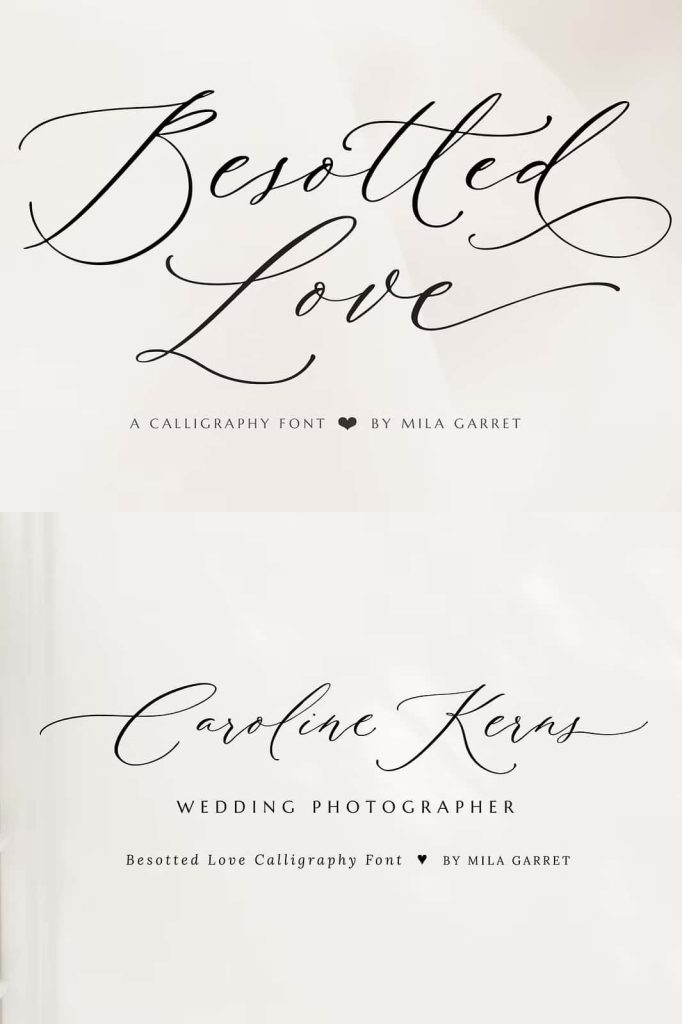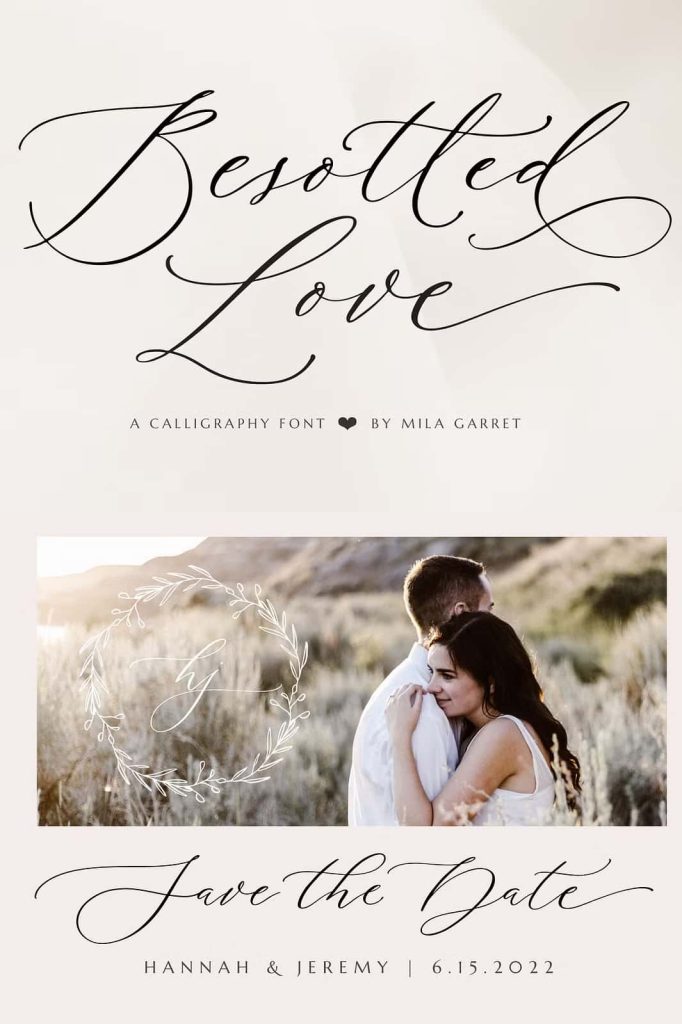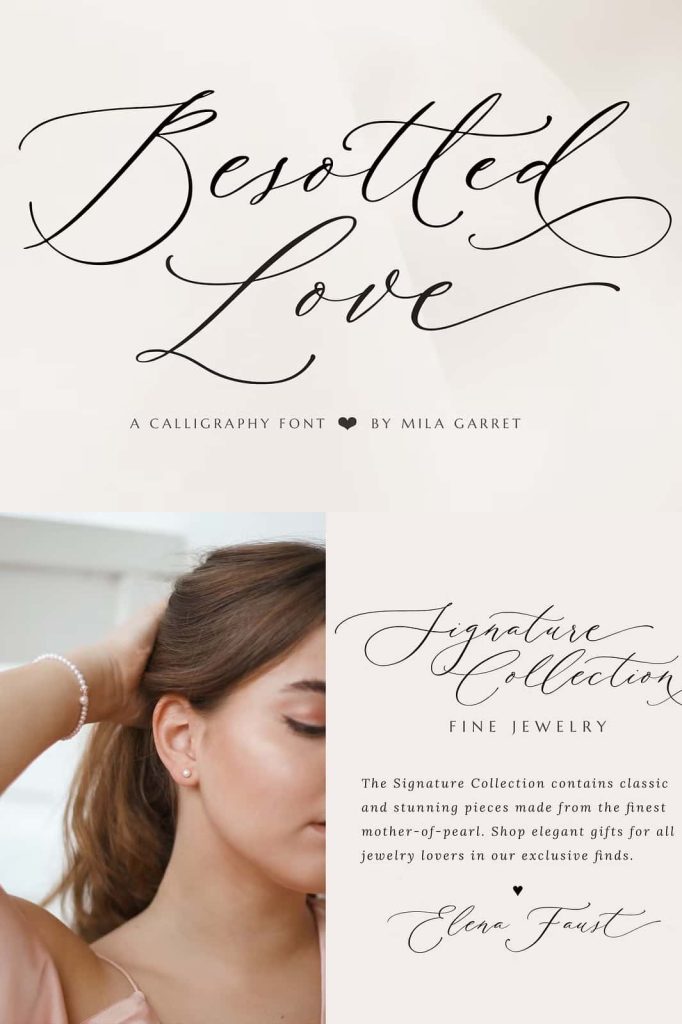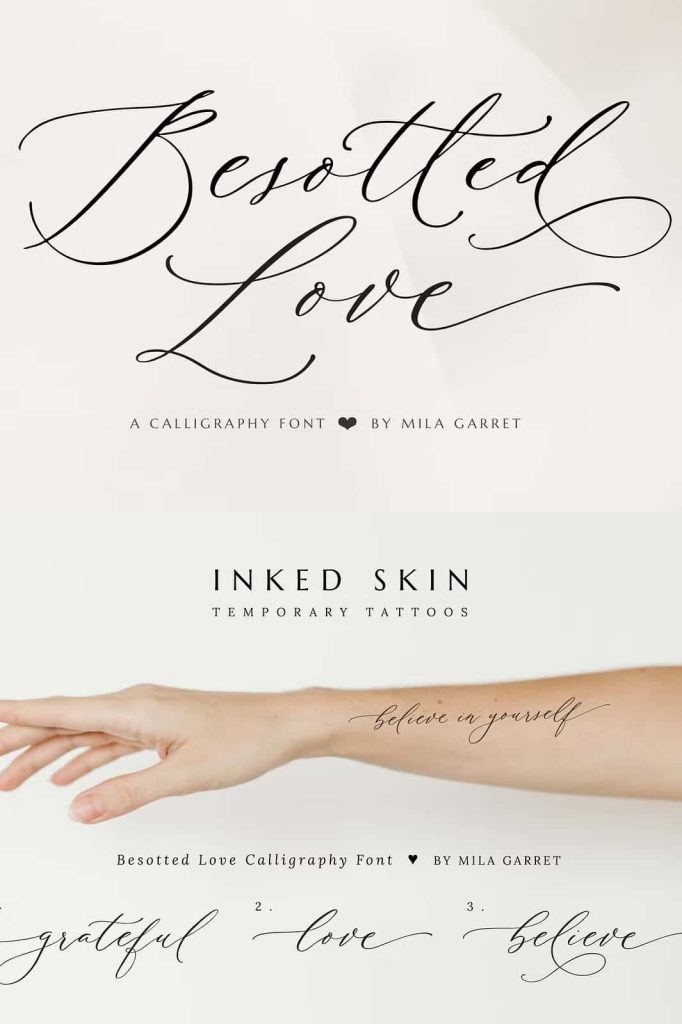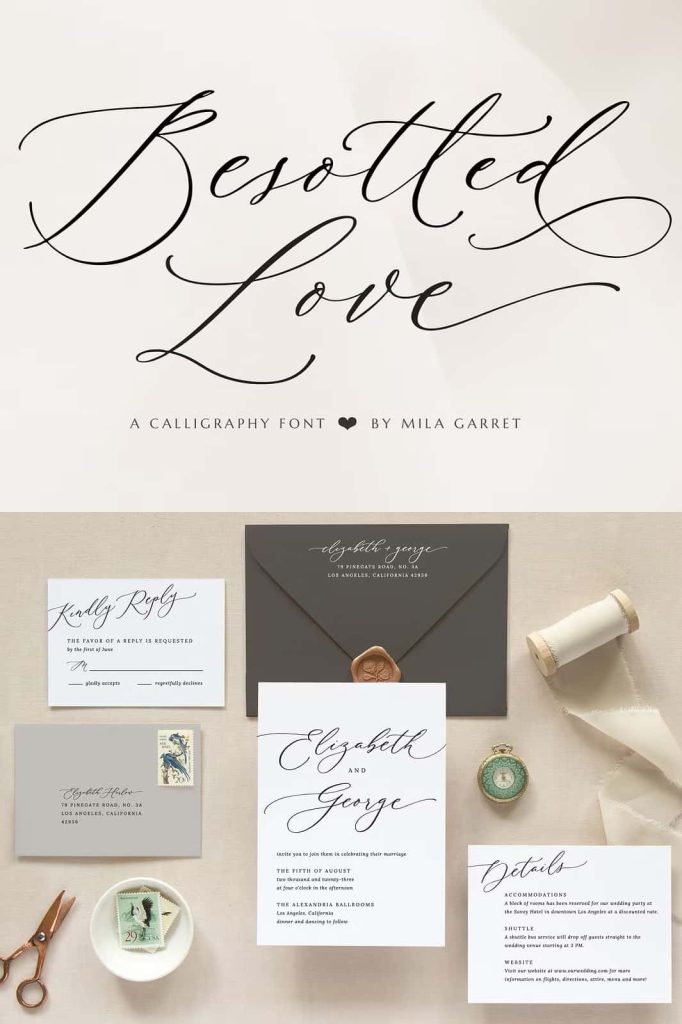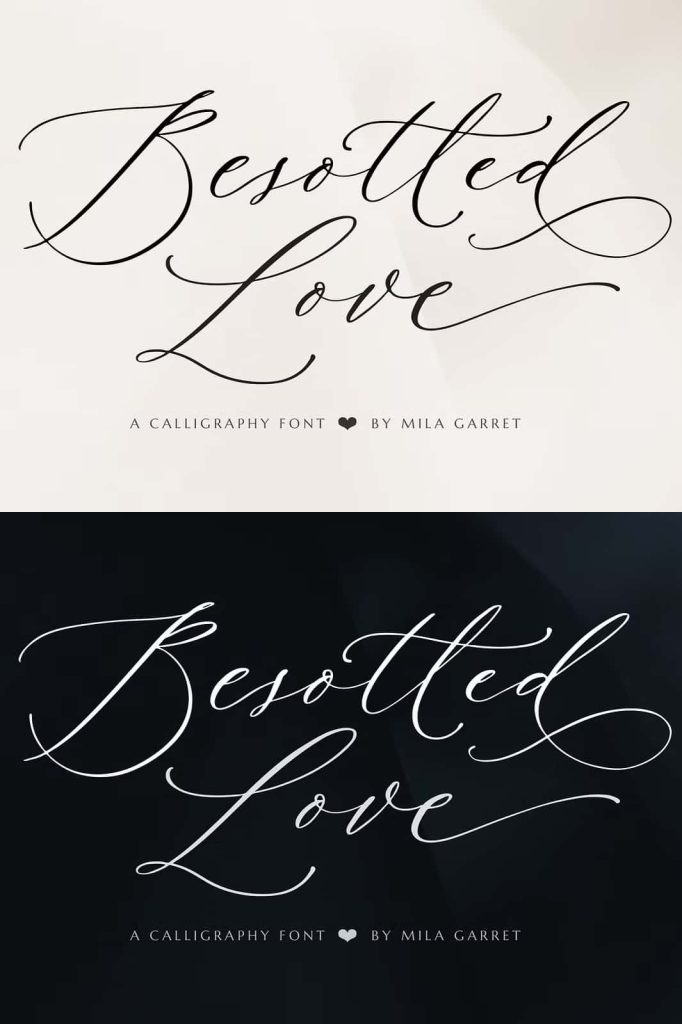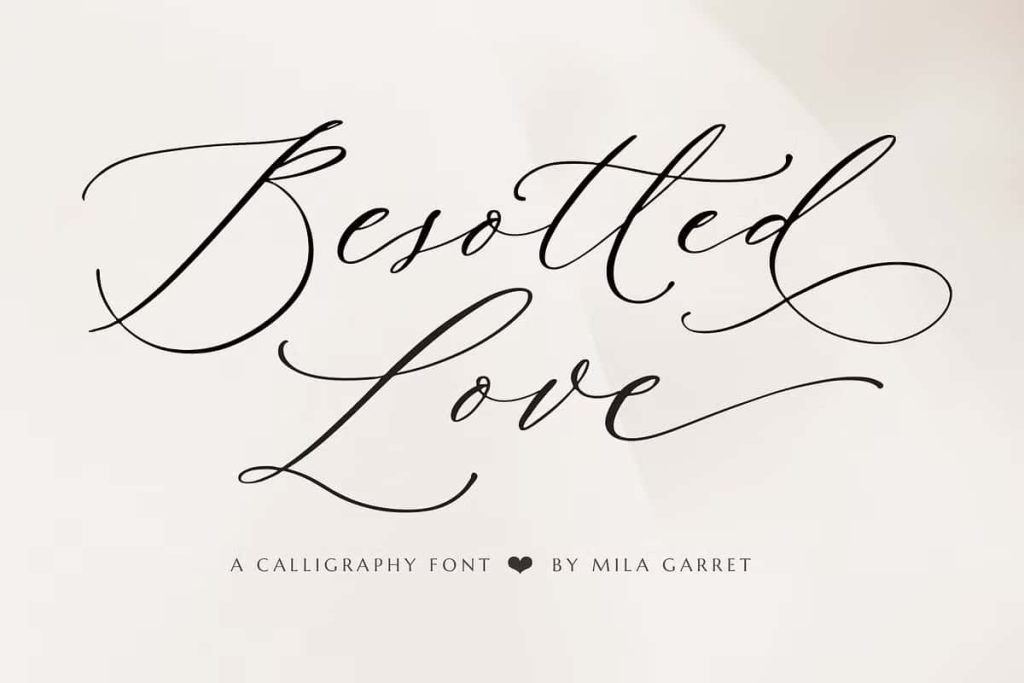
Besotted Love Wedding Calligraphy Font: A Luxurious Script for Elegant and Romantic Designs
The Besotted Love Wedding Calligraphy Font brings luxurious elegance, refined artistry, and timeless romance to every design you create. Carefully crafted to capture the beauty of modern calligraphy, this font exudes fluid grace and expressive sophistication. Its delicate strokes and sweeping curves make it a perfect companion for high-end branding, wedding stationery, photography watermarks, and modern website designs. Besotted Love enhances your work with charm, emotion, and a sense of exquisite craftsmanship.
A Luxurious Typeface Designed for Modern Calligraphy Lovers
Besotted Love stands out through its graceful handwriting style, soft movement, and beautiful letterforms that mimic the flow of real ink on paper. Every character reflects professional skill and romantic expression, giving designers a chance to elevate projects with a typeface that feels personal yet polished. The font was created with a focus on luxury, making it ideal for elegant events, refined branding projects, and digital experiences that require an elevated, high-quality aesthetic.
Perfect for Elegant Logos and High-End Branding
When creating a logo that needs sophistication and a touch of modern romance, Besotted Love delivers outstanding results. Its smooth calligraphy strokes help brands communicate quality, femininity, and exclusivity. This makes the typeface ideal for boutique businesses, beauty brands, wedding-related services, lifestyle companies, creative studios, and luxury product labels. Whether used as a standalone wordmark or paired with minimal design elements, Besotted Love ensures your brand appears stylish, polished, and memorable.
Enhance Wedding Stationery with Romantic Calligraphy
Wedding stationery becomes even more enchanting with the Besotted Love Wedding Calligraphy Font. Its delicate flow and elegant details shine beautifully on invitations, menus, place cards, envelopes, save-the-date cards, programs, vow booklets, and signage. Couples who want a truly personalized aesthetic will appreciate how the font transforms written names and details into art. From classic and traditional ceremonies to contemporary celebrations, Besotted Love adapts gracefully to any wedding style.
Ideal for Photography Branding and Watermarks
Photographers seeking a refined and stylish identity can rely on Besotted Love for professional branding. The typeface works beautifully as a photography watermark, delivering subtle elegance without overpowering the image. Its clean readability and fluid script enhance portrait photography, editorial shoots, wedding galleries, lifestyle imagery, and product photography. When used across business cards, website headers, packaging, or promotional materials, it helps create a cohesive and sophisticated visual identity.
Beautiful on Modern Websites and Digital Designs
Modern websites benefit greatly from a script font that combines readability with artistic flair. Besotted Love brings life to banners, title sections, hero images, inspirational quotes, and promotional graphics. Its graceful movement adds personality to online platforms without sacrificing clarity or professionalism. Designers building portfolios, creative websites, blogs, or e-commerce layouts can elevate their user experience by integrating this luxurious calligraphy typeface into their digital branding.
Transform Your Creative Projects with Besotted Love
The Besotted Love Wedding Calligraphy Font is more than just a script font—it is a tool for creating emotion, elegance, and visual harmony. Its refined beauty, expressive curves, and luxurious style make it an essential choice for designers who strive to produce distinctive, high-end work. Whether you craft wedding stationery, create brand identities, design websites, or enhance photography presentations, Besotted Love gives you the artistic power to make every project shine with sophistication and charm.